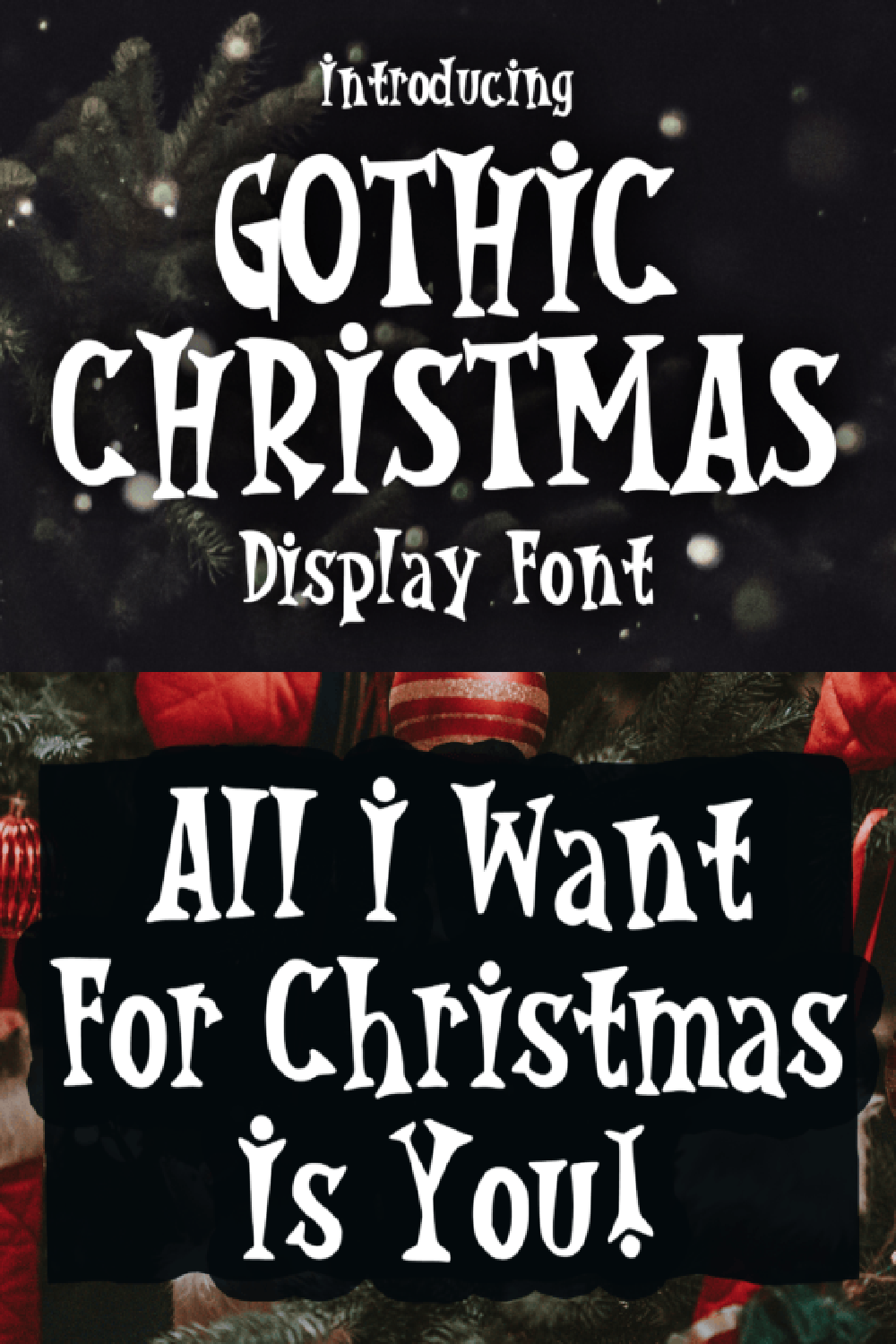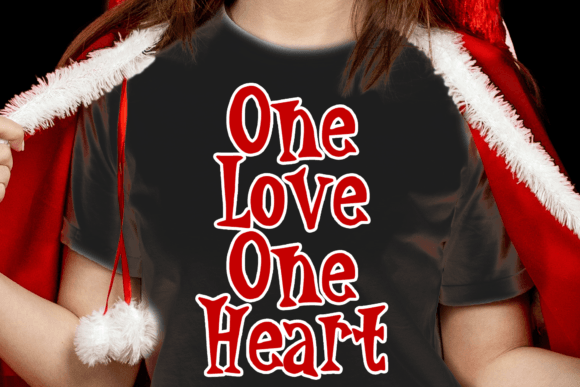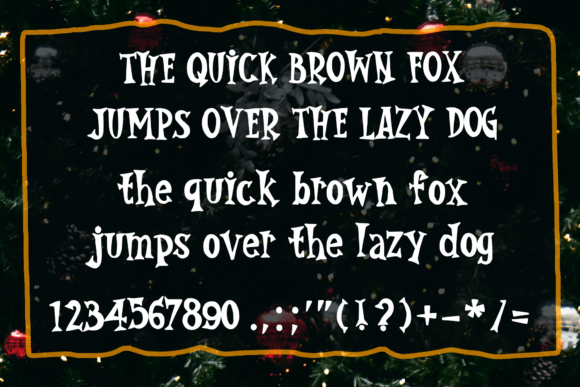
Gothic Christmas Font
About the Gothic Christmas Font
The wait is over! The incredible Gothic Christmas Font is now available for your design toolkit. Gothic Christmas is a spooky Christmas display font yet playful and fun on the same time. You can use it for anything ranging from t-shirts, book designs, and greeting cards to stickers and posters, or anything that needs a casual touch. Fall in love with its incredibly versatile style, and use it to create lovely designs!
Gothic Christmas excels as a display font for headlines, short text blocks on posters, and festive packaging designs. Its playful nature makes it ideal for projects targeting a younger demographic or brands with a fun, slightly spooky aesthetic. Avoid using it for body text or long paragraphs; its highly decorative style would quickly become overwhelming and difficult to read.
This font’s personality is best described as whimsical yet bold. It projects a festive, slightly mischievous energy. Pairing it with a clean sans-serif like Montserrat for body copy provides excellent contrast and readability. For a more sophisticated look, consider a classic serif like Garamond for supporting text, balancing the Gothic Christmas font’s playful energy with a touch of refined elegance.
Alternatively, a geometric sans-serif like Futura could create a modern and striking combination, enhancing the font’s bold character while maintaining visual clarity. Avoid pairing it with other highly decorative or script fonts, as this might create visual clutter and diminish the impact of Gothic Christmas’s unique style.